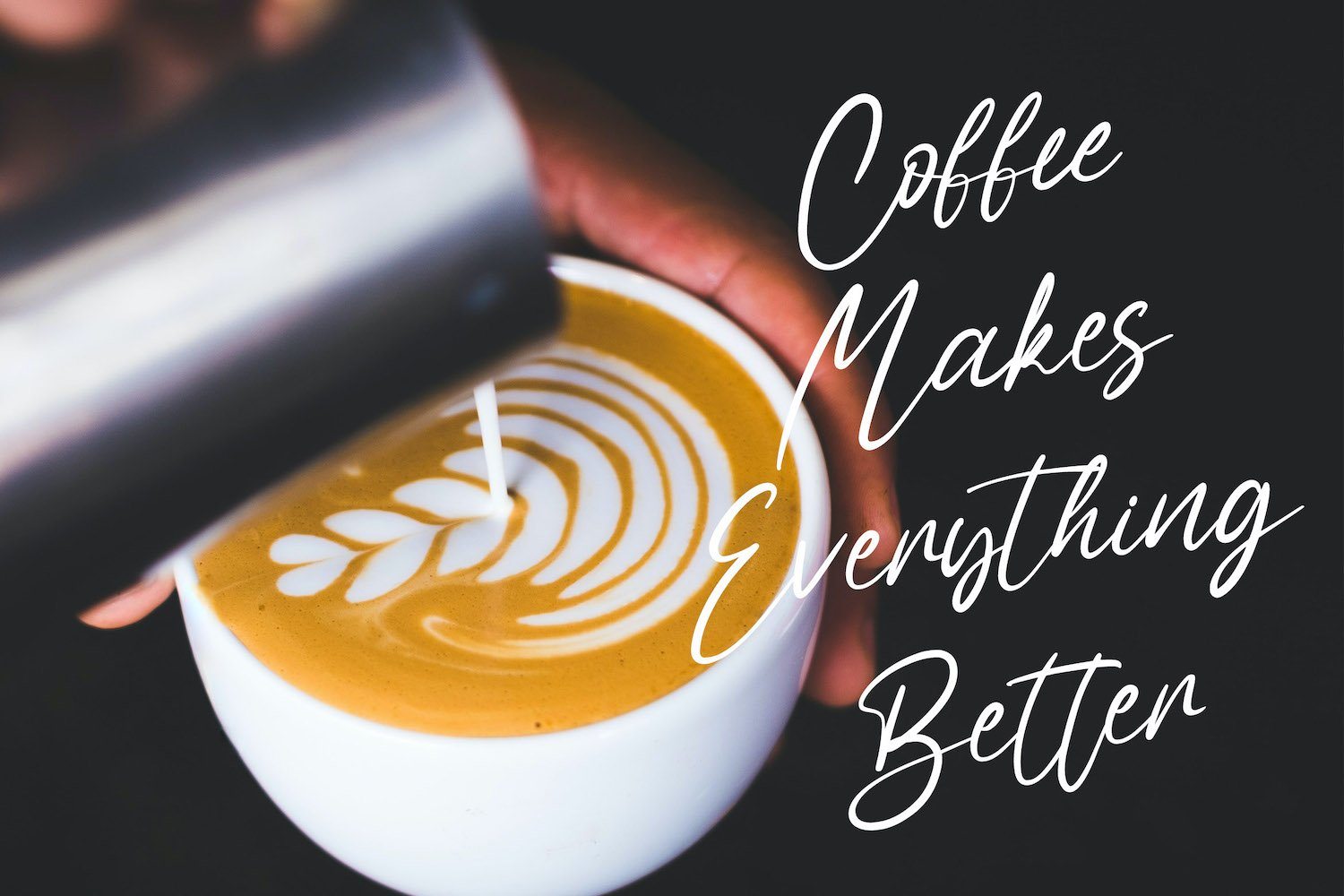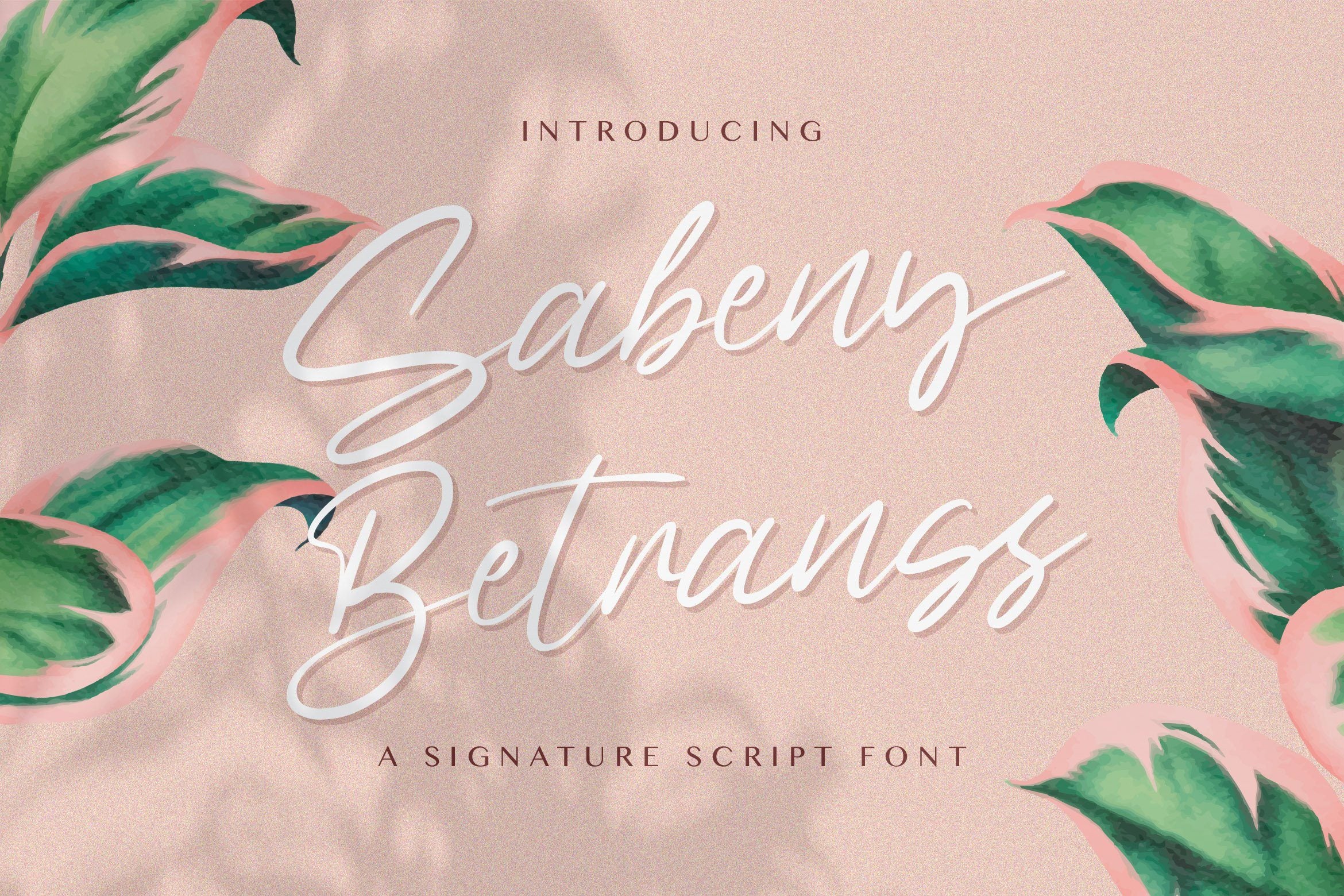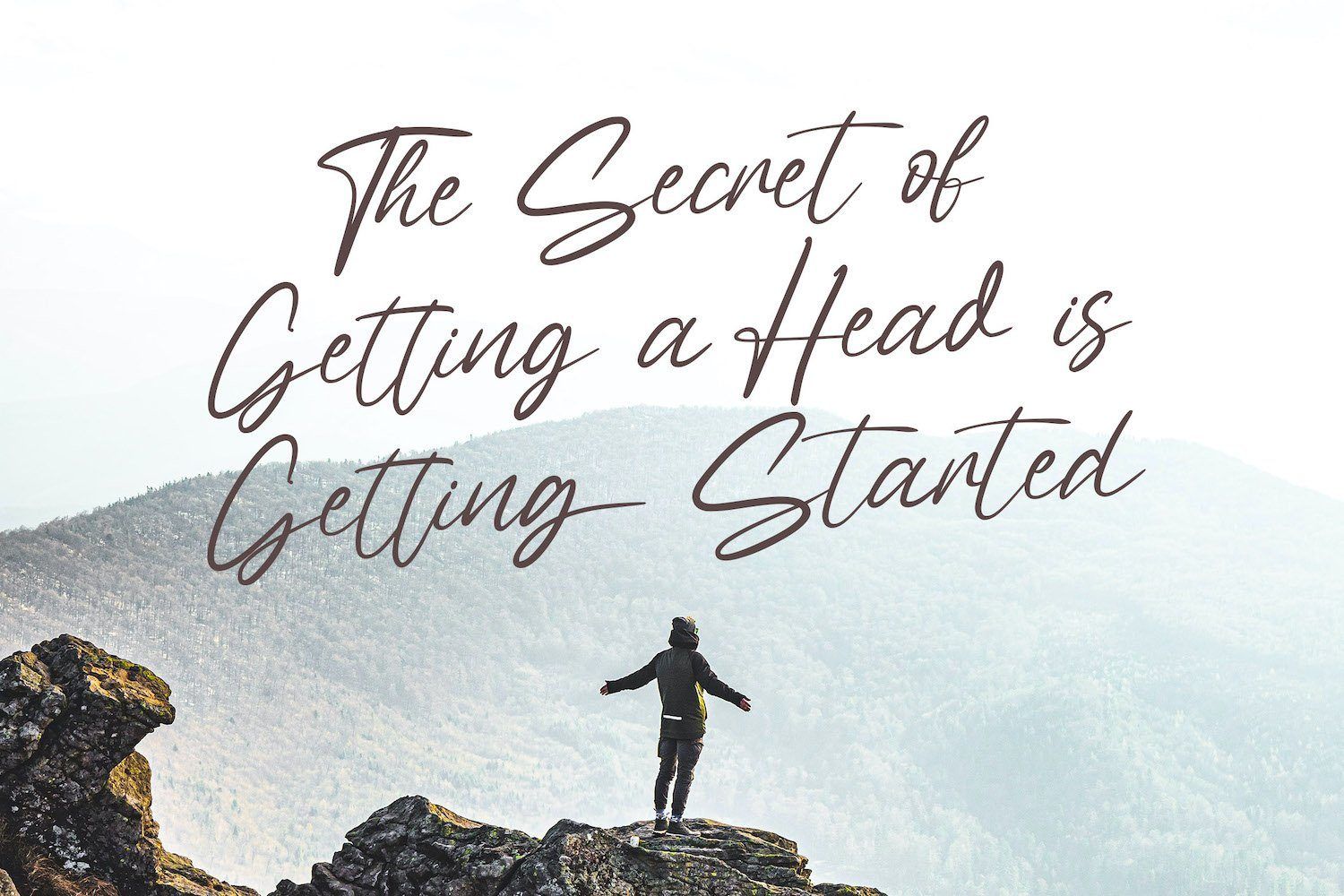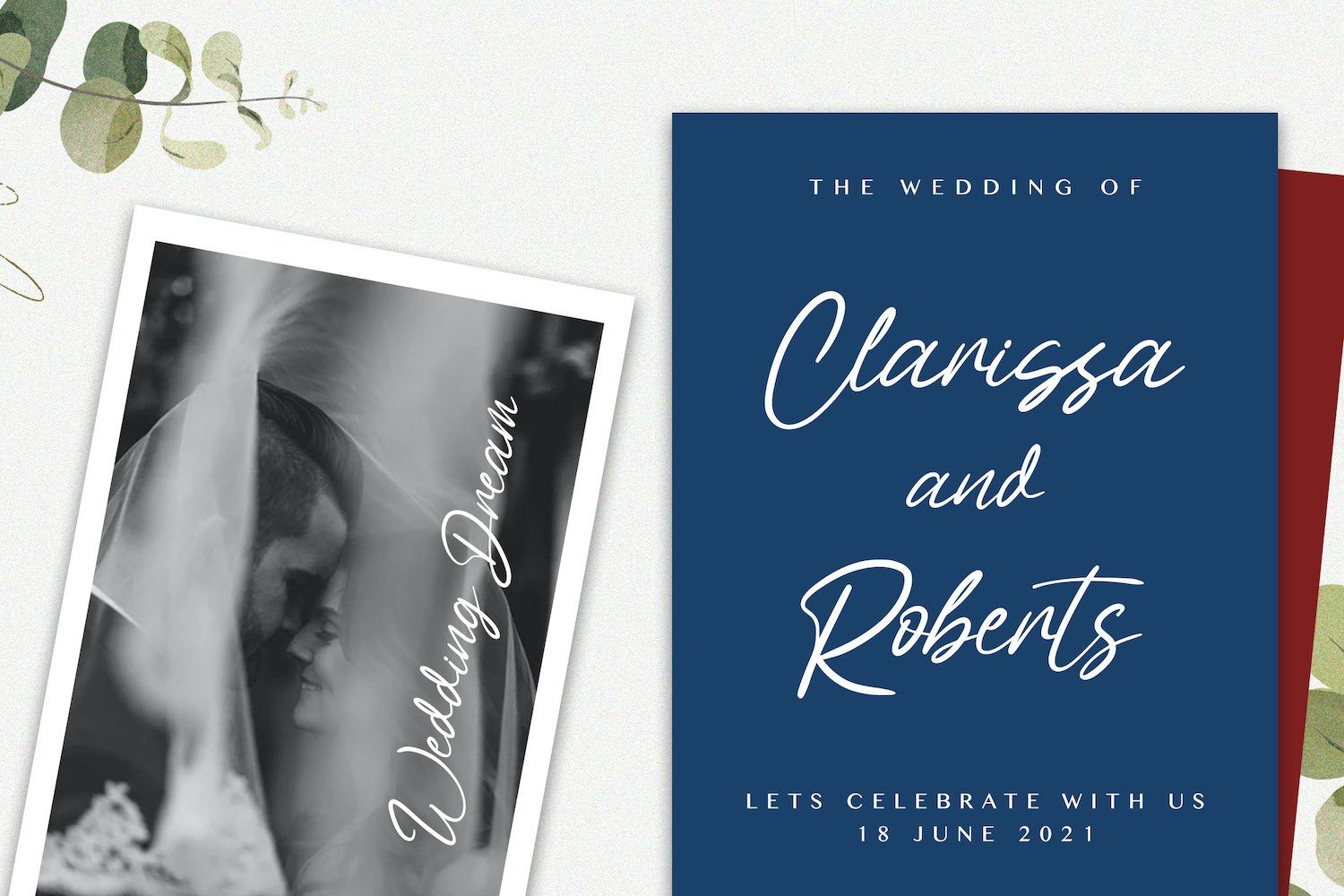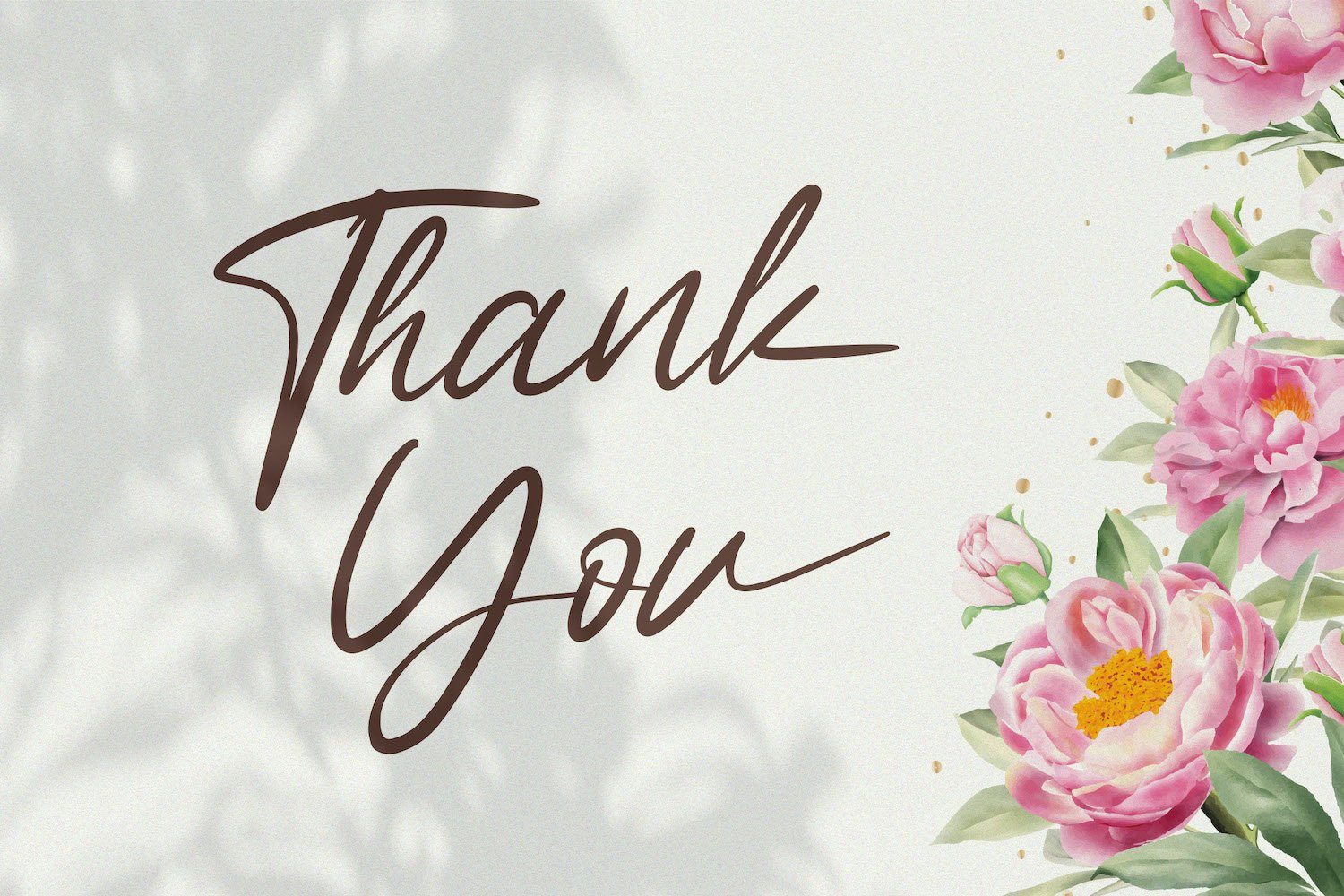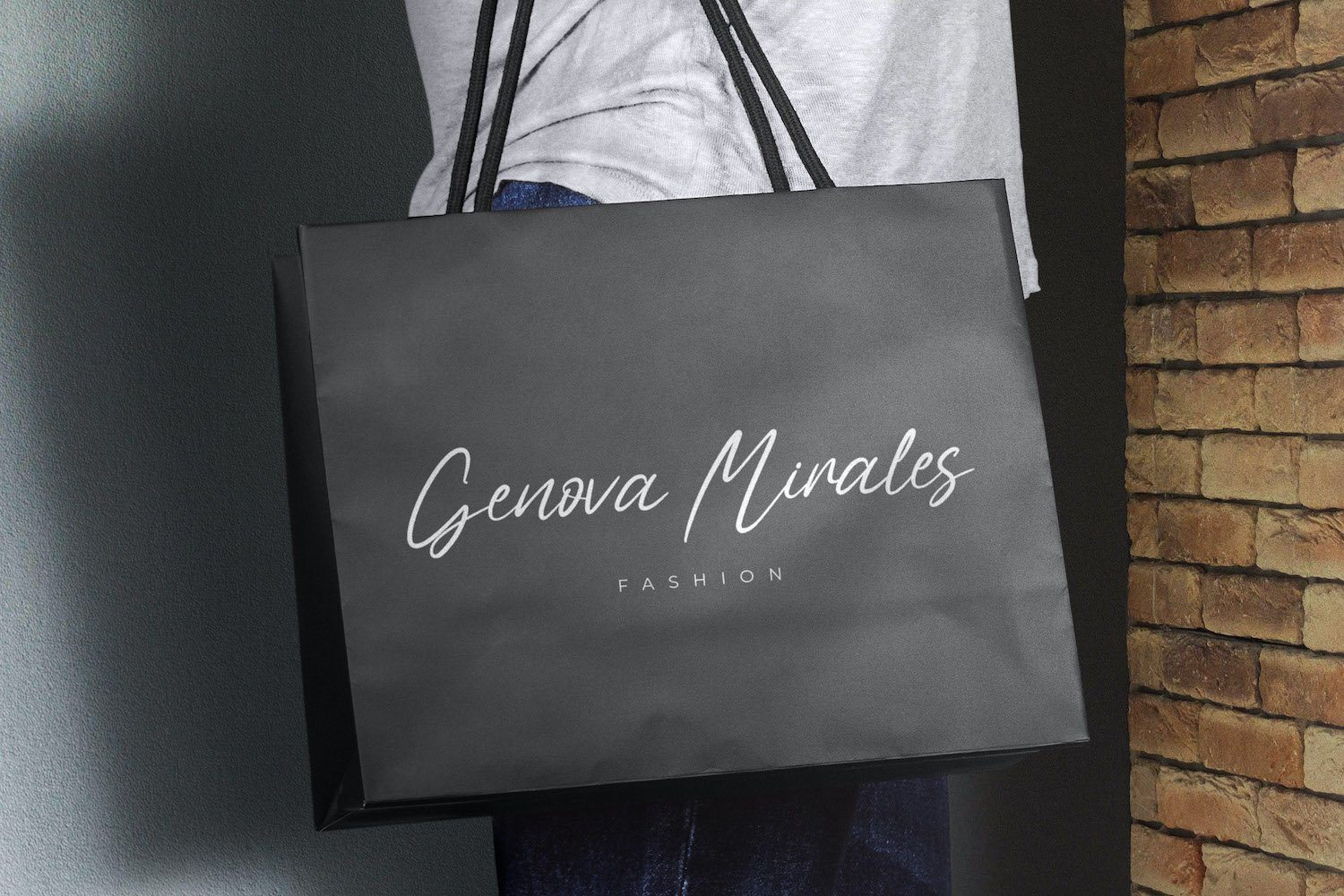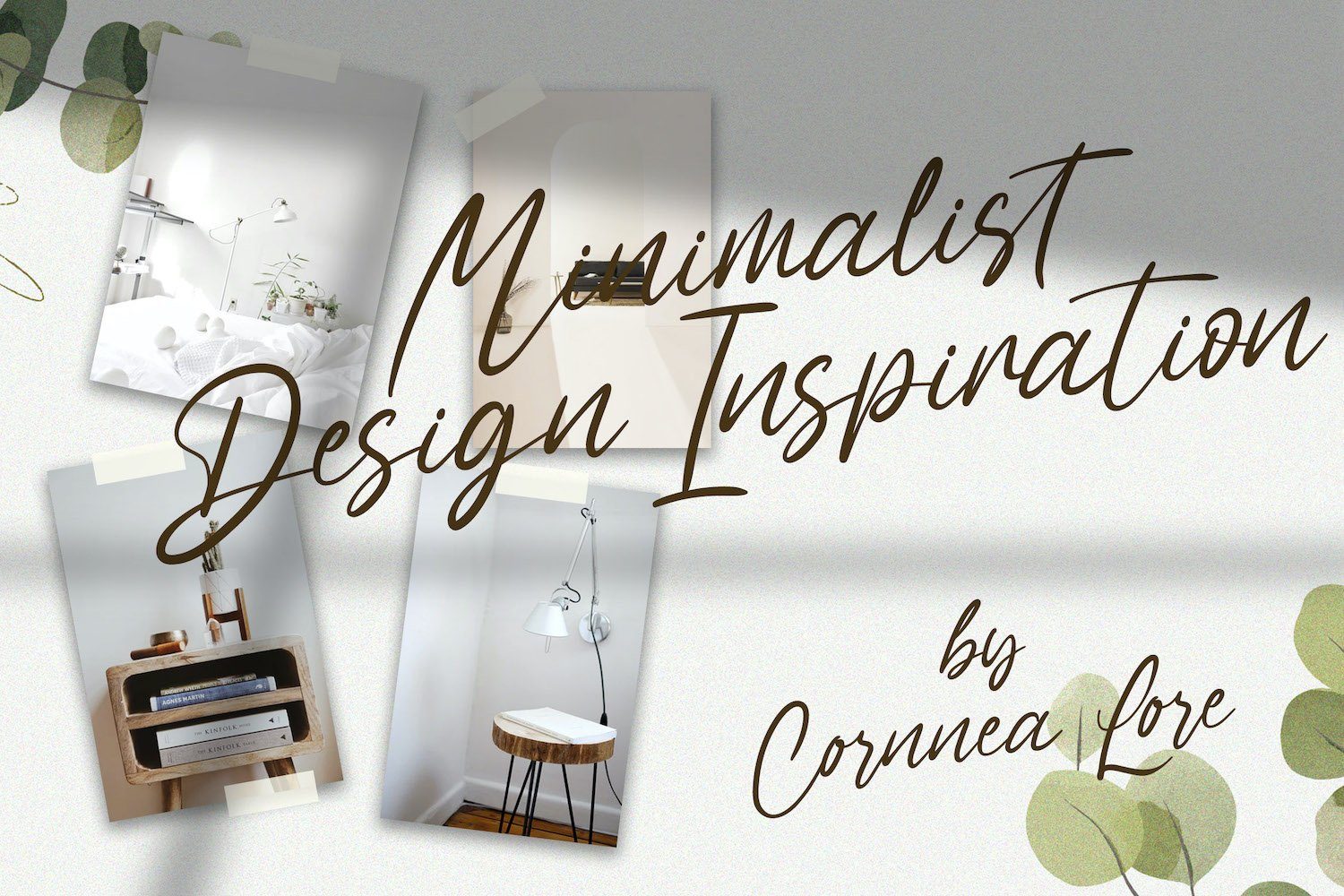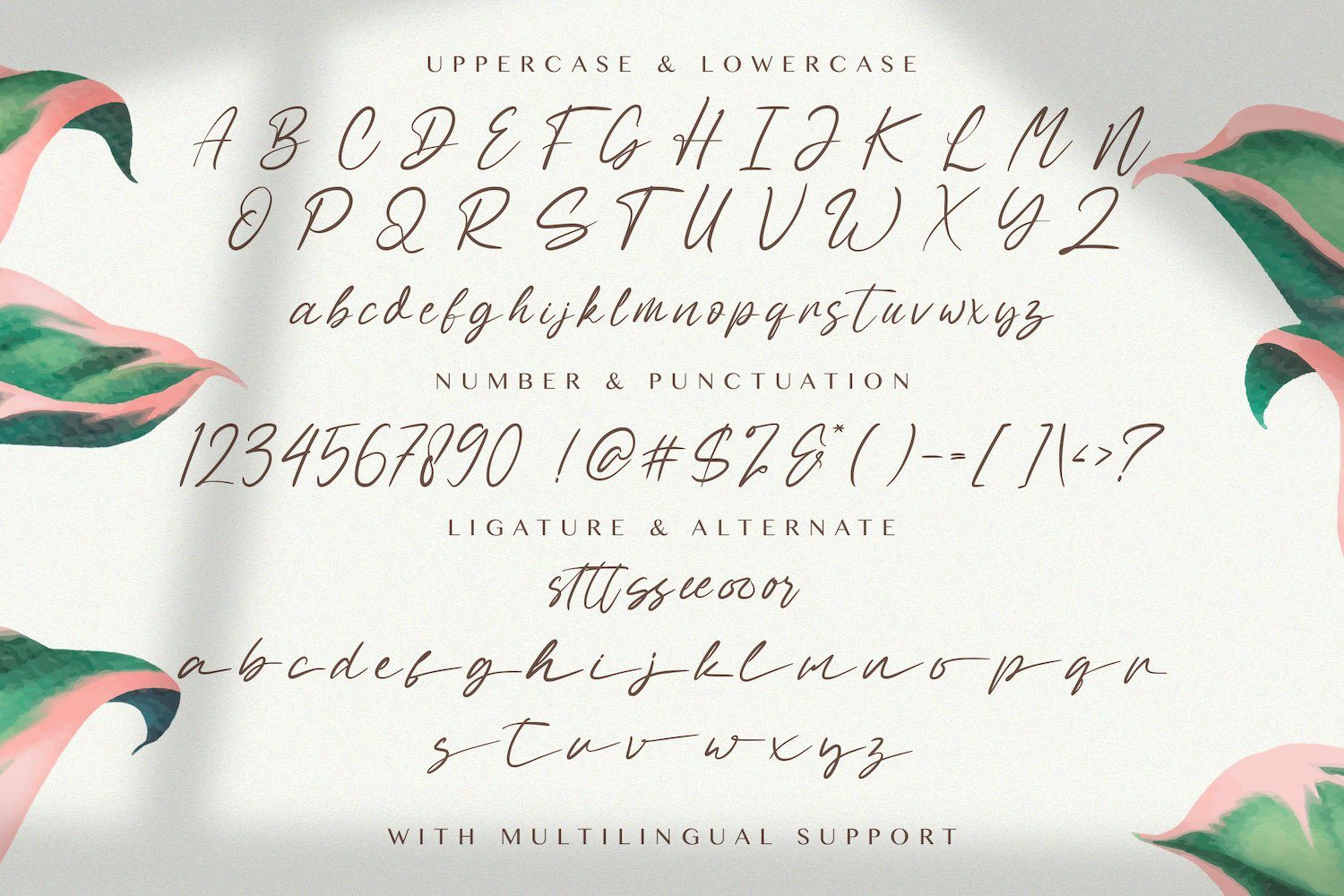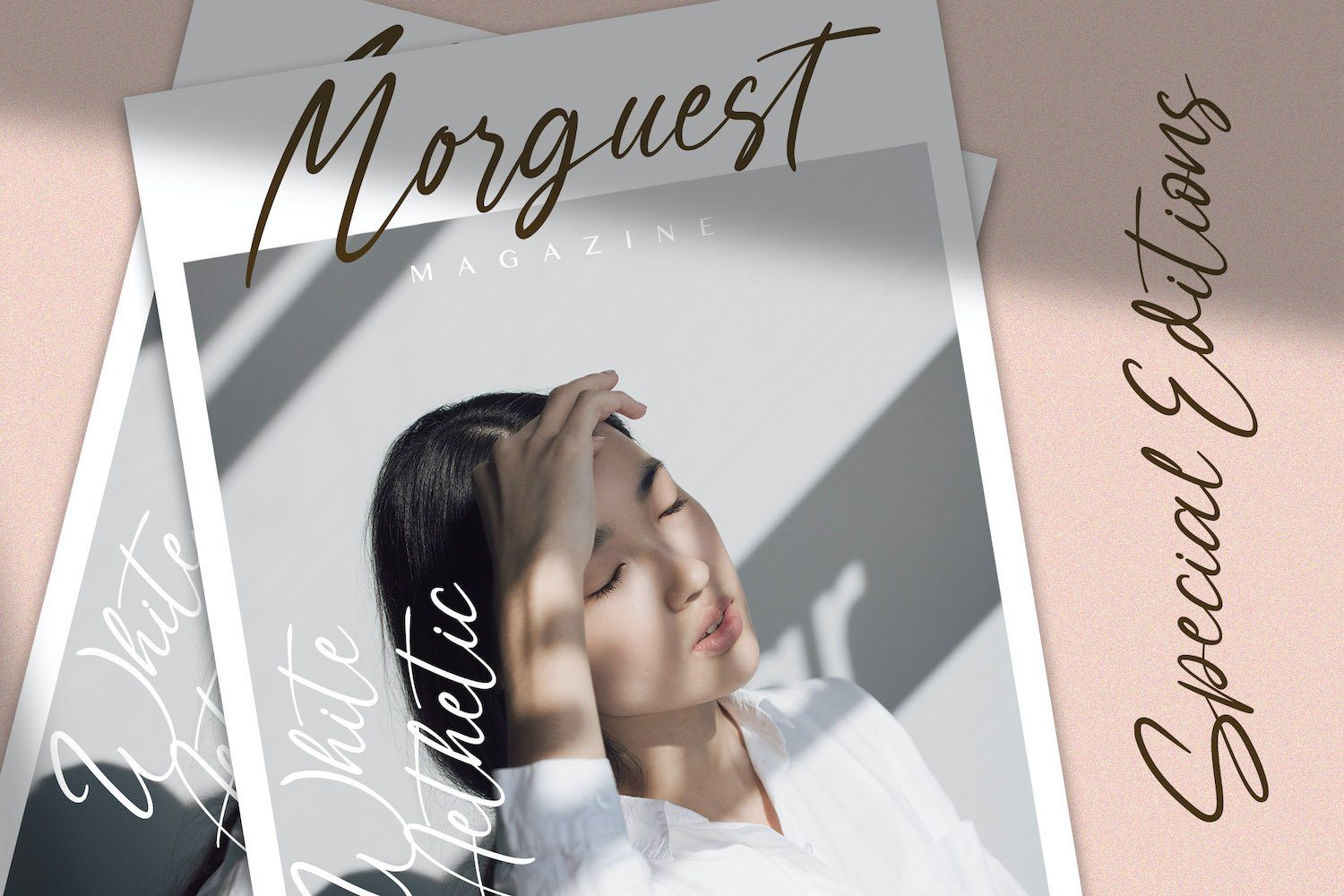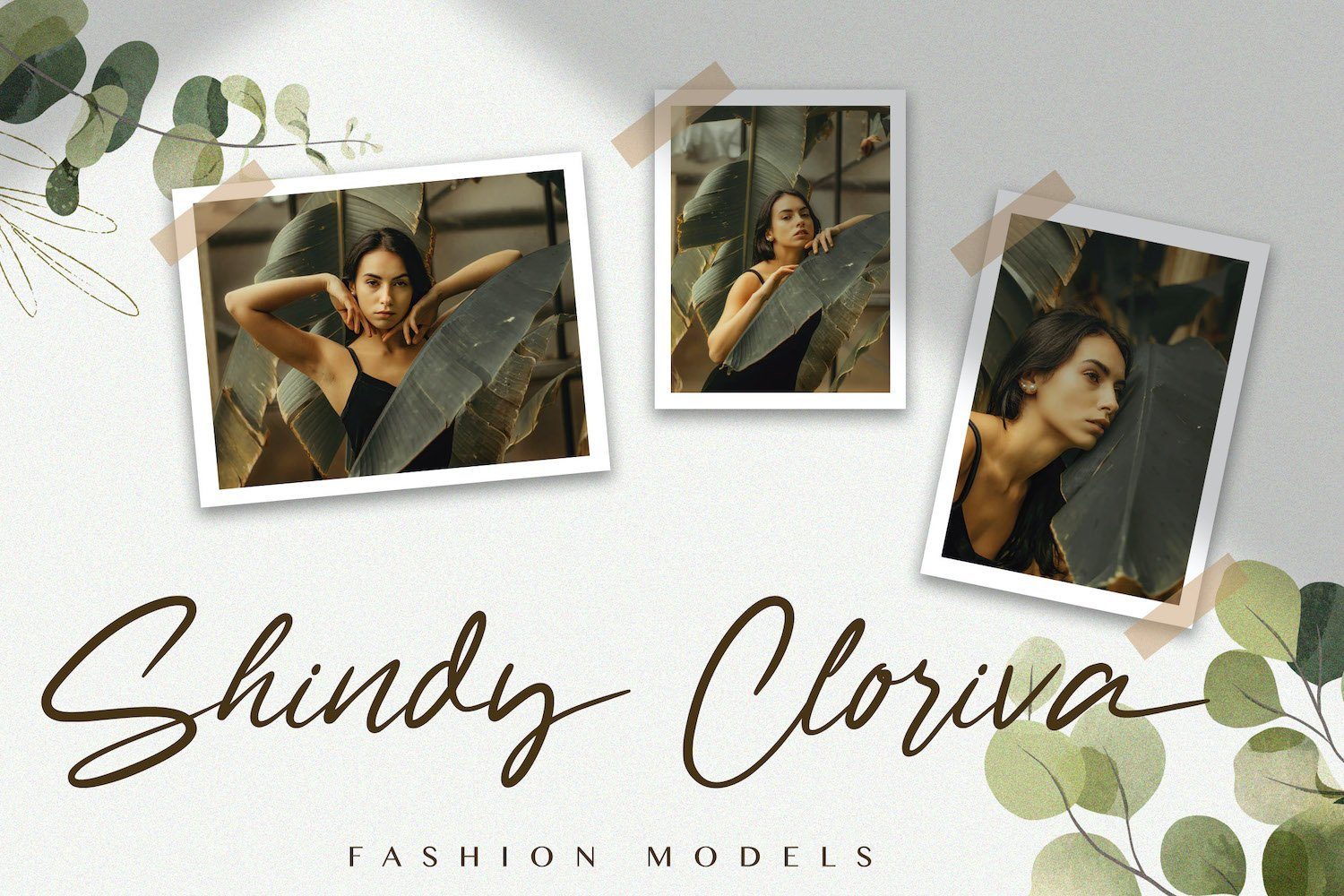
Sabeny Betranss – Handwritten Font
About Sabeny Betranss – Handwritten Font
Introducing Sabeny Betranss – Handwritten Font Sabeny Betranss is a delicate, elegant and flowing handwritten font. It has beautiful and well balanced characters and as a result, it matches a wide pool of designs. Add it to your most creative ideas and notice how it makes them come alive! FEATURES – TTF/OTF/WOFF/WOFF2 – Ligatures – Alternates – Uppercase and Lowercase letters – Numbering and Punctuations – Multilingual Support – Works on PC or Mac – Simple Installation – Support Adobe Illustrator, Adobe Photoshop, Adobe InDesign, also works on Microsoft Word Hope you Like it. Thanks.